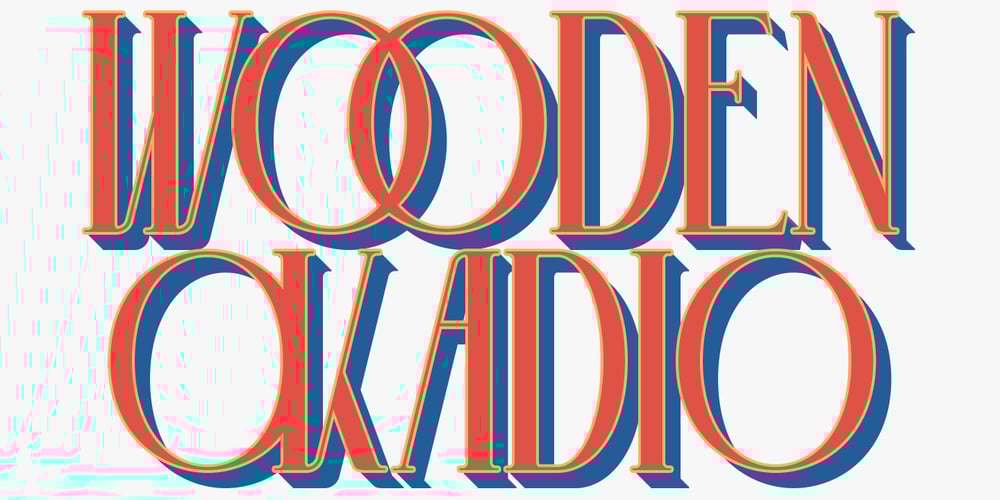
Wooden Okadio
Wooden Okadio font
Wooden Okadio Font Family was designed by Gilang Maulana and published by Maulana Creative. Wooden Okadio contains 1 styles and family package options. Wooden Okadio Serif is a single weight black serif, modern casual typeface perfect use for headline, logo, magazine, and any editorial design needs also readable body text.I hope you like it, keep awesome!